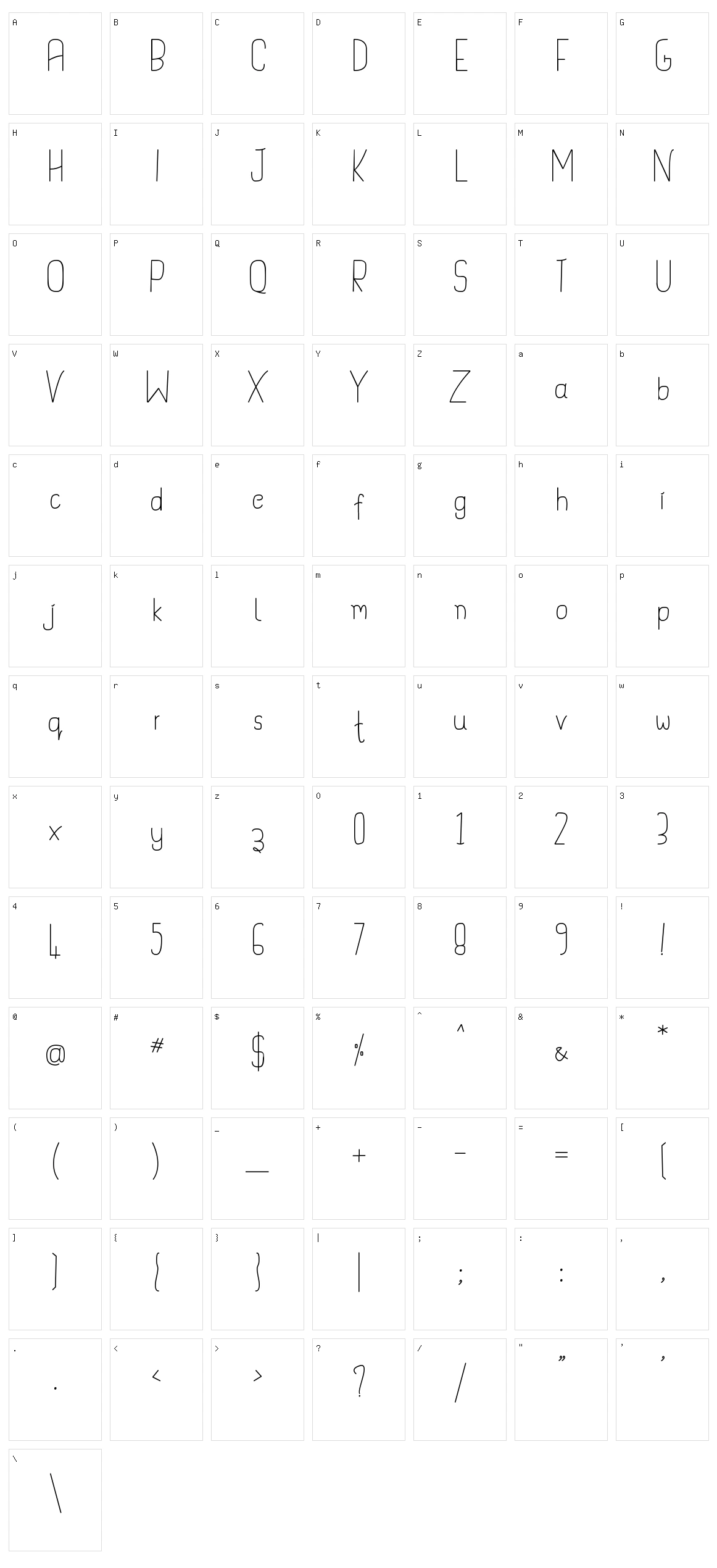
Handypot is Playfull, simple and regular type monoline font - it will be good use for kids games, apps, casual writings, books and invitations and more.